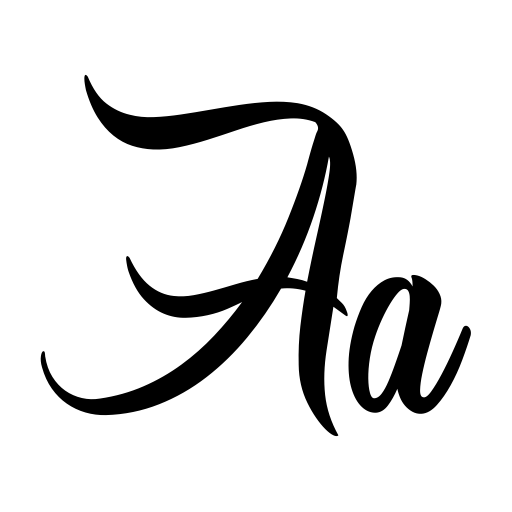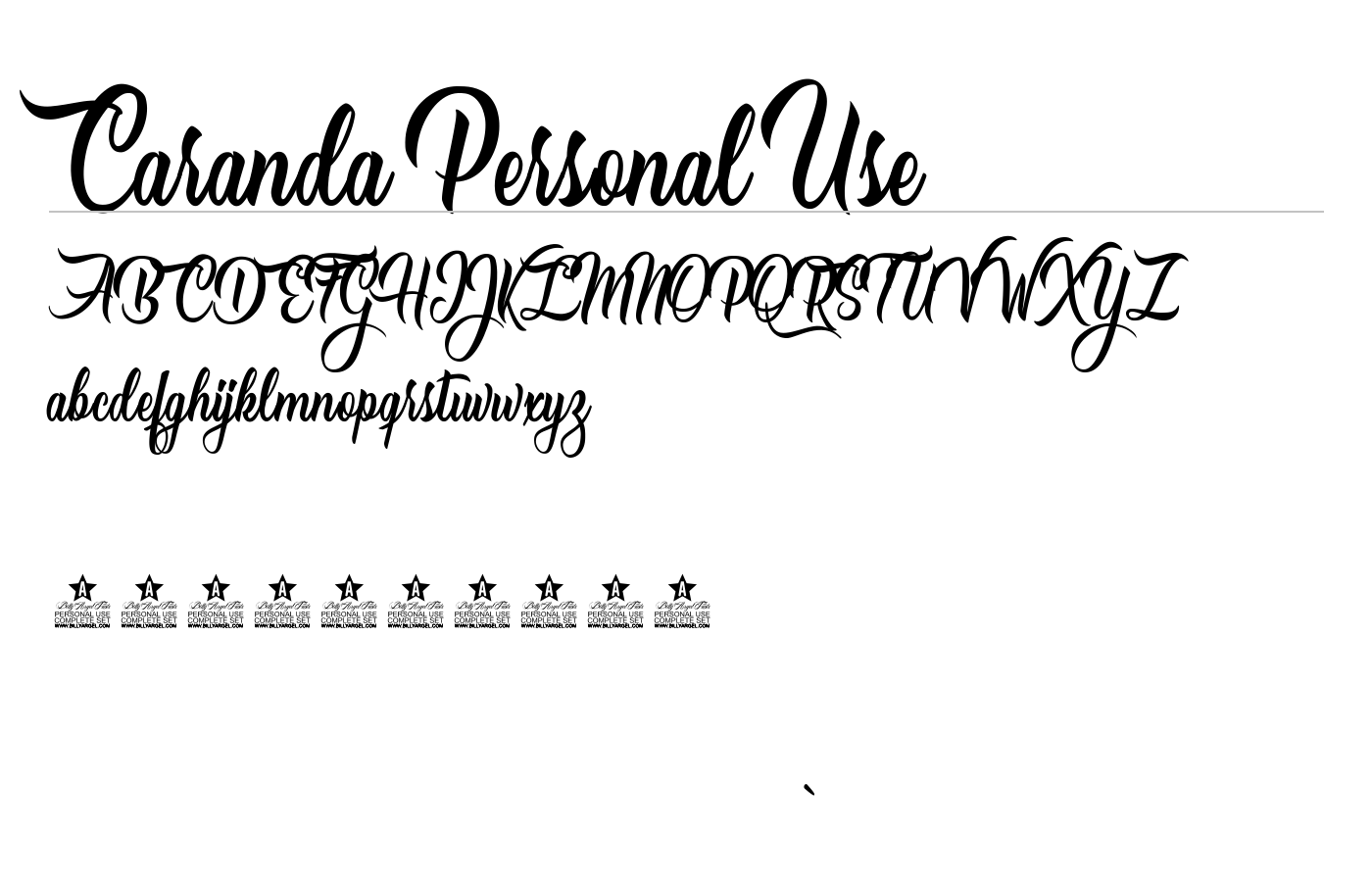
Caranda Personal Use is an elegant script font with flowing, calligraphic strokes and a refined, handwritten feel. Its smooth, swirly lines and moderate contrast create a graceful and artistic look, making it ideal for invitations, branding, and creative projects that seek a personal yet stylish touch. This font works best in headlines or decorative text where a sense of sophistication and charm is desired.
Caranda Personal Use Font
About Caranda Personal Use Font
| Font family | Caranda Personal Use Font |